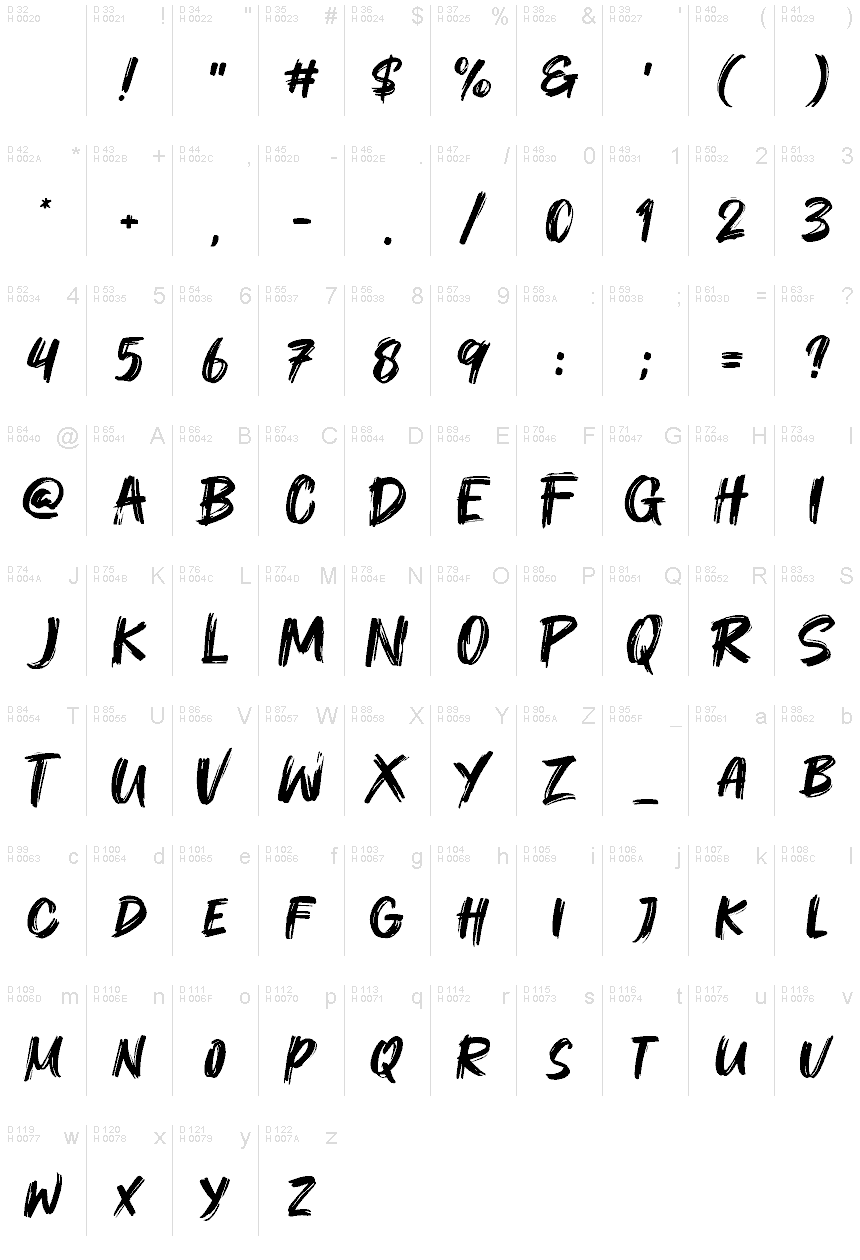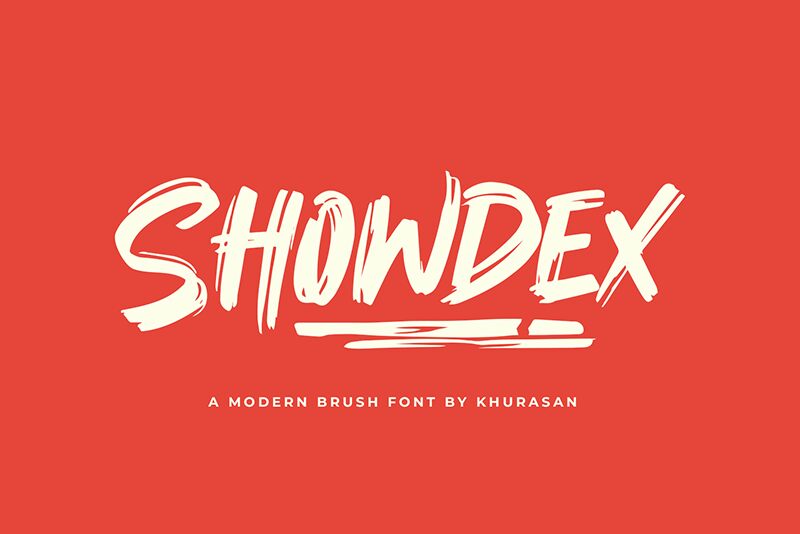
Showdex
Showdex font is the newest font from Khurasan that combines a handwritten and brush style for a unique design experience. The weight of this font is bold reminding of wide strokes drawn with a permanent marker. There is an authentic yet modern feel that makes when Showdex extremely easy to apply in casual and professional projects. Use lowercase and uppercase lettering to see the versatility.
Get artistic with this free brush display font that will instantly spice up your headlines, posters, magazine covers, product packaging, postcards, business cards, invitations, slogan designs, branding articles or social media content.